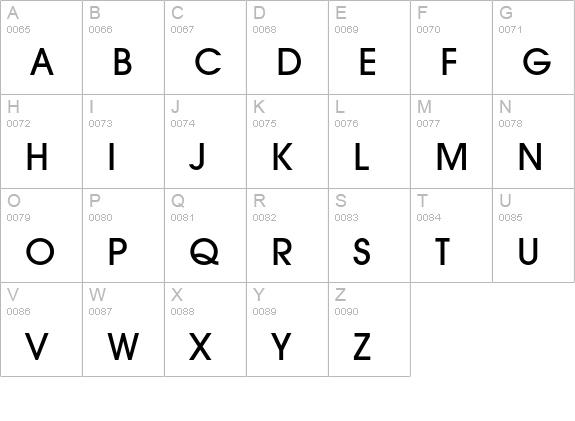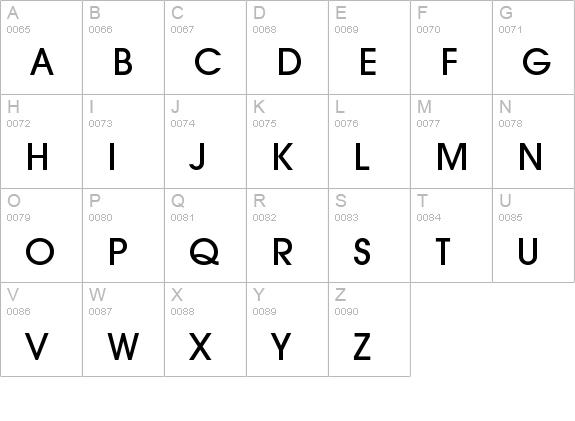
AvantGardEF-Medium is a balanced, medium-weight variant in the AvantGardEF typeface family \xE2\x80\x94 well suited to sub-headlines, navigation, and balanced editorial work.
AvantGardEF-Medium font is a modern and stylish typeface that exudes sophistication and elegance. With its sleek lines and contemporary design, this font is perfect for adding a touch of class to any project. The medium weight of the font strikes the perfect balance between boldness and subtlety, making it versatile for a variety of design applications. What sets AvantGardEF-Medium font apart is that it is free to download at FontsMarket.com. This means that you can easily access this high-quality font without any cost, making it a valuable addition to your font collection. Whether you're working on a professional design project or simply looking to elevate your creative endeavors, AvantGardEF-Medium font is sure to make a lasting impression.